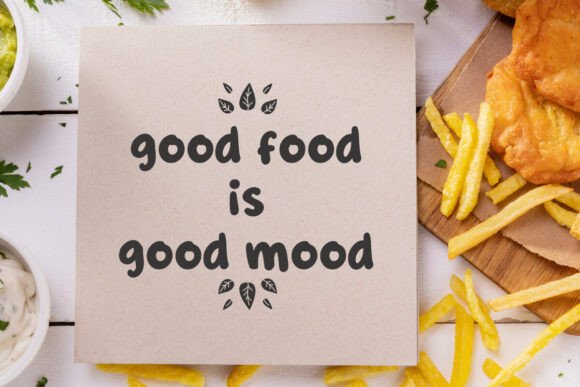
Banana Latte Font: The Perfect Addition to Your Design Projects
Are you looking for a font that can add a touch of playfulness and delight to your design projects? Look no further than the Banana Latte Font. This cute and playful handwriting font is perfect for a wide range of designs, from brochures and covers to custom designs, gift boxes, and more. In this article, we’ll take a closer look at the Banana Latte Font and explore its features, uses, and benefits.
What is Banana Latte Font?
Banana Latte Font is a unique and charming handwriting font that is designed to bring a smile to your face. With its bold and small letters, this font is perfect for creating eye-catching designs that are sure to grab attention. The font features special ornament characters that add an extra touch of personality to your designs.
Key Features of Banana Latte Font
- Cute and Playful Design: The Banana Latte Font has a playful and charming design that is sure to delight.
- Special Ornament Characters: The font features special ornament characters that add an extra touch of personality to your designs.
- Bold and Small Letters: The font has a mix of bold and small letters that create a visually appealing contrast.
- Handwriting Style: The font has a handwriting style that gives it a personal and unique touch.
Uses of Banana Latte Font
The Banana Latte Font is versatile and can be used for a wide range of design projects. Here are some of the ways you can use this font:
Design Projects that Banana Latte Font is Perfect for
- Brochures: The Banana Latte Font is perfect for creating eye-catching brochures that grab attention.
- Covers: Use the font to create stunning covers for books, magazines, and more.
- Custom Designs: The font is perfect for creating custom designs for clients or personal projects.
- Gift Boxes: Add a touch of personality to gift boxes with the Banana Latte Font.
- Invitations: The font is perfect for creating invitations for parties, weddings, and other events.
- Labels: Use the font to create labels for products, files, and more.
- Menus: The Banana Latte Font is perfect for creating menus for restaurants, cafes, and other food establishments.
- Posters: Create eye-catching posters with the Banana Latte Font.
- Product Packaging: The font is perfect for creating product packaging that stands out.
- Quotes: Use the font to create inspiring quotes for social media, posters, and more.
- Screen Printing: The font is perfect for screen printing designs on t-shirts, hoodies, and other apparel.
- Signage: Use the font to create eye-catching signage for businesses, events, and more.
- Stationery: The Banana Latte Font is perfect for creating stationery, such as letterheads, business cards, and more.
- Websites: Use the font to create a unique and playful design for your website.
Benefits of Using Banana Latte Font
The Banana Latte Font offers a range of benefits that make it a great addition to your design projects. Here are some of the benefits of using this font:
Why Choose Banana Latte Font?
- Unique and Playful Design: The font has a unique and playful design that sets it apart from other fonts.
- Easy to Read: The font is easy to read, making it perfect for body text and headings.
- Versatile: The font is versatile and can be used for a wide range of design projects.
- High-Quality: The font is high-quality and is designed to deliver crisp and clear results.
In conclusion, the Banana Latte Font is a cute, playful handwriting font that is perfect for adding a touch of delight to your design projects. With its special ornament characters, bold and small letters, and handwriting style, this font is sure to grab attention and create a lasting impression. Whether you’re designing a brochure, cover, custom design, gift box, or more, the Banana Latte Font is a great choice.